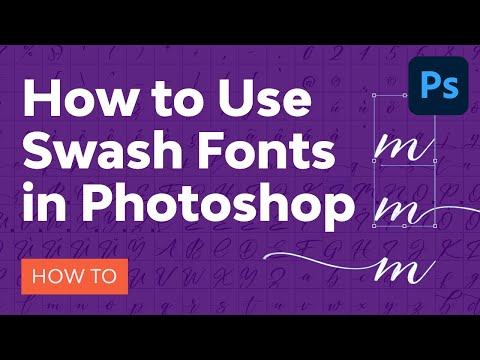
Knowing how to use glyphs in Photoshop can help you use all sorts of different characters, ornaments, and swashes. Let's find where these are hiding!
Word glyphs and swashes are individual characters that aren't standard to every font. We can say they are an extension of the basic characters we normally find in a set of typefaces. For instance, single characters with different accents are part of glyphs. You'll usually find glyphs in fonts that support multiple languages.
Not every font will contain glyphs, and the ones that do will have them in their style. Aside from different accents, mathematical symbols or copyright symbols can also be included. Depending on the typeface classification, you'll also find different styles of glyphs.
• Script fonts will often have characters with different swashes for the beginning and ending letters in a word.
• Calligraphic fonts have ornamented characters and additional flourishes. Different versions of the same characters are also usual. Fonts inspired by handwriting try to include different versions of the same character to make the renderings look real.
• Display fonts can have different motifs and icons. Some can even have different border styles.
Photoshop glyphs panel displaying Quechely font
Photoshop glyphs panel displaying Quechely
What You Will Need to Use Glyphs in Photoshop
Austria
1. How to Find Glyphs in Photoshop
If you're wondering how to find glyphs in Photoshop, start by creating a new Photoshop file. To open the Photoshop Glyphs panel, head over to Window > Glyphs. The Glyphs panel will automatically display the last font used.
Opening the glyphs panel
The Glyphs panel will show individual characters. Here are a few of the options on the panel:
• If you want to change the font, do so through the Set Font Family option from the panel or through the Text option.
• Under Set Font Category, you'll find the glyphs category, which will vary depending on the font.
• Set Font Style refers to the italics or any of the different font weights (thin, regular, bold, etc.)
• Use the Glyphs zoom slider and the Glyphs scaler to make the glyphs larger or smaller, so they're easier to see.
2. How to Use Swash Fonts in Photoshop
Select the Text tool from the toolbar and click on the document to add text. Select a letter, and the Glyphs panel will automatically find that letter in the list. Scroll through to find other options for that specific character. To replace the letter, you can double-click on the glyph.
Another option is to go to the Glyphs panel and set the Font Selection to Alternates for Selection. This option will show you the swashes for the letter you're selecting. From there, you can double-click on the swash you'd like to use. Now you're ready to use these special characters in Photoshop.
Below, you can see the different selections for the character 'm'. The first character is the regular style, the second is an ending swash, and the third one is a starting swash. The last two are perfect if you're using words that either start or end with 'm'.
Below, I'm using the words 'Modern Mountain' to show you the different capital 'M' glyphs and the lowercase 'n'. Letters written by hand are different, and even in the same sentence you won't be able to find the same 'n' or the same 'M.' The advantage of these special characters in Photoshop is that a digital rendering of many words can get closer to authentic hand-lettering.
Not every font has swashes and glyphs, but you most likely have a couple in your font library that you can check out. In this tutorial, you learned to open the Photoshop Glyphs panel and how to use glyphs. These amazing characters can be useful if you're working with hand-lettering-inspired fonts. Since hand-lettered characters aren't all the same, using glyphs in Photoshop can help you find the same character in a couple of different styles.